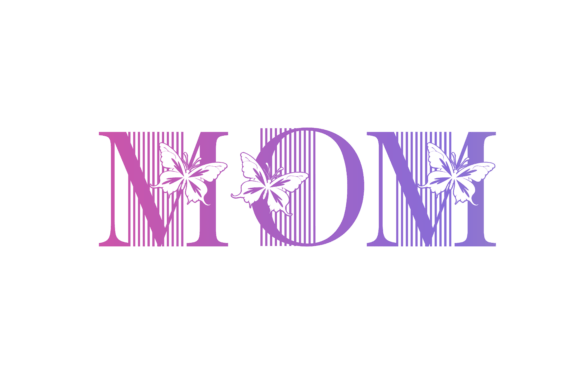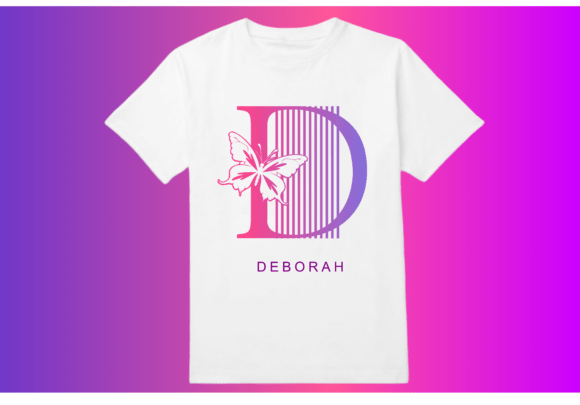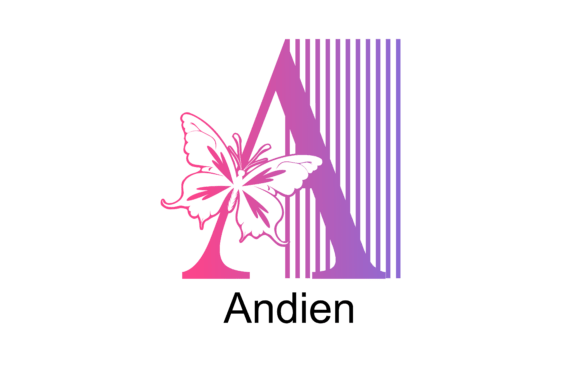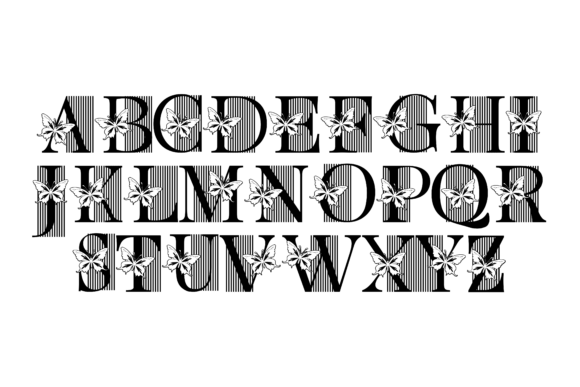
Cupu Monogram Font: Elevate Your Designs with Artistic Elegance
Immerse yourself in an artistic adventure with the visually stunning Cupu Monogram font. This invigorating typography flies your creative imagination to uncharted territories, infusing your work with an unparalleled aura of brilliance. Allow the entrancing allure of Cupu Monogram to animate your designs, converting them into engaging artful storytelling. With this font, your compositions are imbued with a radiant elegance that effortlessly transforms them into irresistible masterpieces that demand attention.
The Artistic Appeal of Cupu Monogram
The Cupu Monogram font is a masterpiece of typographic design, boasting a unique and captivating aesthetic that sets it apart from other fonts. Its intricate details and elegant lines make it an ideal choice for designers and crafters looking to add a touch of sophistication to their work. Whether you’re creating a logo, branding materials, or digital content, Cupu Monogram is the perfect tool to elevate your designs and make them stand out.
Unleash Your Creativity with Cupu Monogram
With Cupu Monogram, the possibilities are endless. This versatile font can be used in a wide range of design applications, from print materials to digital media. Its flexibility and adaptability make it an excellent choice for designers who want to push the boundaries of their creativity. Whether you’re working on a personal project or a client’s brief, Cupu Monogram is sure to inspire you to create something truly remarkable.
The Benefits of Using Cupu Monogram
- Unique and Memorable Designs: Cupu Monogram’s distinctive style ensures that your designs will be remembered and noticed.
- Elegance and Sophistication: Add a touch of luxury and refinement to your work with this beautiful font.
- Versatility: Use Cupu Monogram in a variety of design applications, from logos and branding to digital content and print materials.
Tips and Tricks for Working with Cupu Monogram
To get the most out of Cupu Monogram, here are a few tips and tricks to keep in mind:
- Experiment with Different Sizes and Colors: Play around with different sizes and colors to find the perfect combination for your design.
- Pair it with Other Fonts: Combine Cupu Monogram with other fonts to create a unique and visually appealing typography.
- Use it in Combination with Images: Add an extra layer of depth to your designs by combining Cupu Monogram with images and graphics.
Who Can Benefit from Cupu Monogram?
Cupu Monogram is an excellent choice for a wide range of designers and crafters, including:
- Graphic Designers: Add a touch of elegance and sophistication to your designs with this beautiful font.
- Logotype and Branding Experts: Create memorable and impactful logos and branding materials with Cupu Monogram.
- Digital Artists and Illustrators: Use Cupu Monogram to add an extra layer of depth and visual interest to your digital art.
- Crafters and Makers: Add a personal touch to your handmade crafts and products with this unique and captivating font.
Revel in the harmonious blend of enjoyment and aesthetics brought to you by the mesmerizing allure of the Cupu Monogram font. With its unique and captivating design, versatility, and ease of use, Cupu Monogram is the perfect tool for designers and crafters looking to elevate their work and create something truly remarkable. So why wait? Immerse yourself in the artistic adventure of Cupu Monogram and discover a world of creative possibilities.